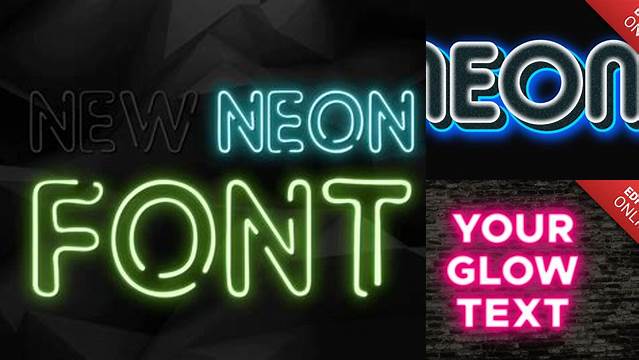
Free Neon Font Generator: Create Stunning Text Effects
Hey guys, ever wanted to add that super cool, vibrant glow of neon lights to your text without breaking the bank or learning complex design software? Well, you're in luck! The free neon font generator is here to make all your digital signage and creative text dreams come true. It's an absolute game-changer for anyone looking to add a touch of retro-futuristic flair to their projects, whether it's for social media, a personal blog, a party invitation, or even just some fun, eye-catching graphics. Forget about fiddling with expensive programs or hiring a designer; with these amazing online tools, you can create dazzling neon text effects in just a few clicks. We're talking about instant gratification, beautiful results, and best of all, absolutely no cost. So, let's dive deep into the world of free neon text generation and discover how you can light up your designs with incredible glowing fonts!
Online Neon Text Effect Generator: Your Go-To Tool for Instant Glow
Looking for an online neon text effect generator that's both powerful and easy to use? You've landed in the right place, folks! These incredible web-based tools are designed to transform your plain text into dazzling, glowing neon masterpieces without any fuss. Imagine being able to craft striking headlines, captivating social media posts, or even a personalized virtual sign in mere seconds. That's the power we're talking about here. The beauty of an online generator is its accessibility; you don't need to download any software, install any plugins, or even have a high-end computer. All you need is an internet connection and a brilliant idea. Most of these platforms offer a user-friendly interface where you simply type in your desired text, choose from a variety of neon styles, select your favorite colors, and voilà – your glowing creation is ready to be downloaded and used wherever your heart desires. Think about how much time and effort this saves you compared to traditional graphic design methods. You can experiment with different fonts, adjust the intensity of the glow, play with background textures, and even add flickering effects to truly mimic a real neon sign. It’s perfect for digital artists, marketers, small business owners, or anyone who just wants to add a vibrant, eye-catching element to their digital content. The possibilities are truly endless, and the fact that it's all available for free makes it an indispensable resource in your creative toolkit. So, next time you need some electrifying text, remember your trusty online neon text effect generator is just a click away, ready to illuminate your vision with stunning, customizable glow effects.
Create Neon Signs Online Free: Design Your Own Glowing Masterpiece
Ever dreamt of having your own custom neon sign but thought it was way too expensive or complicated? Well, guess what, guys? You can create neon signs online free with the amazing tools available today! These generators aren't just for simple text; many allow you to design full-blown virtual neon signs that look incredibly realistic. Imagine designing a cool phrase for your gaming stream, a catchy slogan for your homemade crafts, or even a personalized nameplate for your digital workspace – all with that iconic, electric glow. The process is surprisingly straightforward, making it accessible even for those who consider themselves total design novices. You start by inputting your text, then you get to play around with different font styles that mimic classic neon tubing. From there, you can pick from a dazzling array of colors, from vibrant pinks and electric blues to fiery reds and cool greens. What's more, some advanced free generators even let you adjust the thickness of the neon tubes, add background elements, or simulate the reflection and shadow effects that real neon signs produce. This level of customization allows you to truly personalize your design, ensuring it perfectly matches the aesthetic you're going for. Think about the impact a unique, glowing graphic can have on your social media presence or your website's header. It immediately grabs attention and communicates a sense of retro coolness or modern innovation, depending on your chosen style. Plus, being able to create these signs for free means you can experiment to your heart's content without any financial commitment. It’s an awesome way to bring your creative ideas to life, adding a professional and stylish touch to any project. So, next time you need a show-stopping visual, remember that designing your own glowing neon sign online, absolutely free, is not just a dream – it's a super achievable reality!
Free Neon Glow Text Maker: Get That Luminous Edge Instantly
When it comes to making your text truly pop, nothing beats the vibrant allure of a free neon glow text maker. Guys, this isn't just about changing a font; it's about infusing your words with a spectacular, luminous edge that grabs attention and holds it. Whether you're designing a poster for a band, creating an intro for a YouTube video, or just sprucing up an Instagram story, that iconic neon glow can make all the difference. These online tools are fantastic because they remove all the barriers to entry. You don't need any prior graphic design experience, nor do you need to invest in costly software. Simply hop online, find a reputable free neon glow text maker, type in your message, and start playing around with the settings. Most generators offer a delightful array of customization options. You can choose from a palette of electric colors – think fuchsia, cyan, lime green, and royal blue – each designed to give your text that undeniable luminous quality. Beyond color, you can often adjust the intensity and spread of the glow, making it subtle and elegant or bold and flamboyant. Some even allow for animated effects, like a gentle pulse or a simulated flicker, bringing a dynamic element to your static text. Imagine the impact of a blog post title that literally glows, or a call-to-action button that shimmers with an irresistible neon allure. It's a fantastic way to differentiate your content and make it memorable. This tool is a lifesaver for content creators, small business owners, and students alike, offering a quick and efficient way to produce high-quality, eye-catching visuals without any financial outlay. So, don't let your text blend into the background. Give it the luminous edge it deserves with a free neon glow text maker and watch your designs light up!
DIY Neon Lettering Online: Craft Your Own Glowing Words
Alright, folks, if you're into the do-it-yourself spirit but want to dabble in digital art, then DIY neon lettering online is your new best friend! This isn't just about picking a pre-made font; it's about getting hands-on (virtually speaking, of course!) and crafting your own unique glowing words. Think of it as your personal digital art studio, where you're the master of light and shadow. The beauty of these online platforms is how they empower you to customize almost every aspect of your neon creation. You start with a blank canvas, essentially, where you input your text. Then, the real fun begins. You can choose from a vast library of typefaces, some mimicking the sleek curves of classic neon, others offering a more modern, angular twist. After selecting your font, you get to play with colors – and not just standard colors, but glowing colors, each radiating that distinct neon vibrancy. Many generators allow you to adjust the